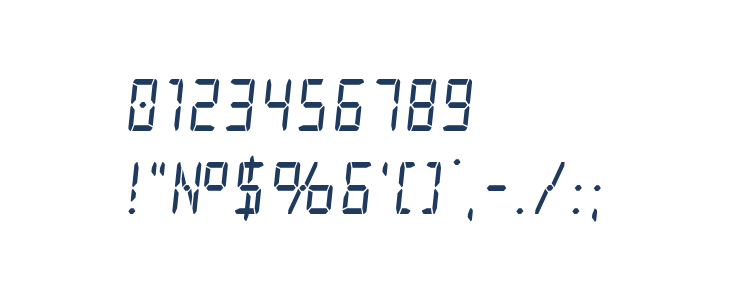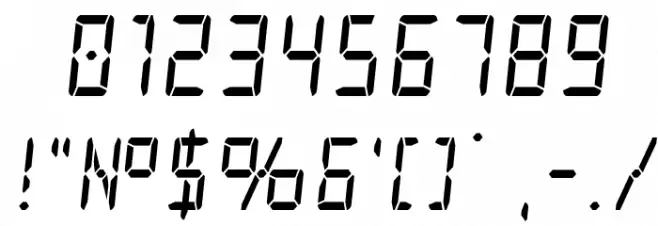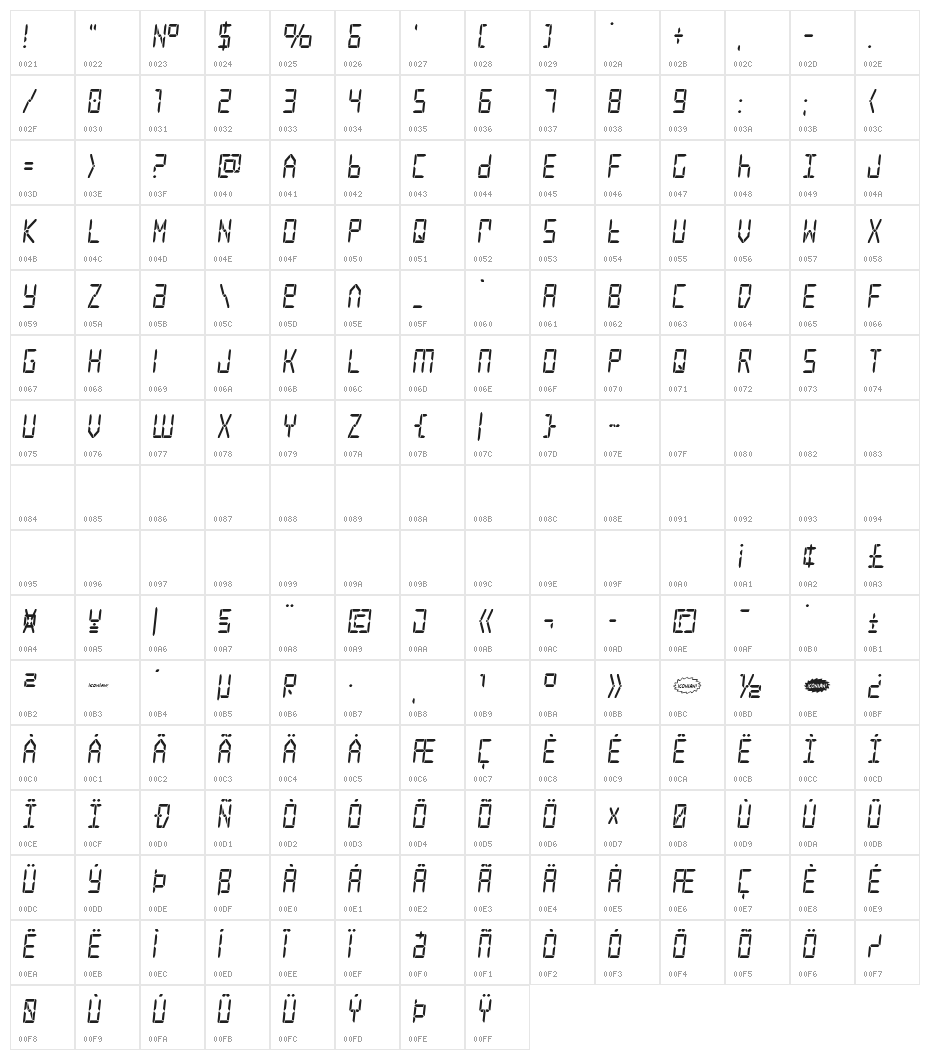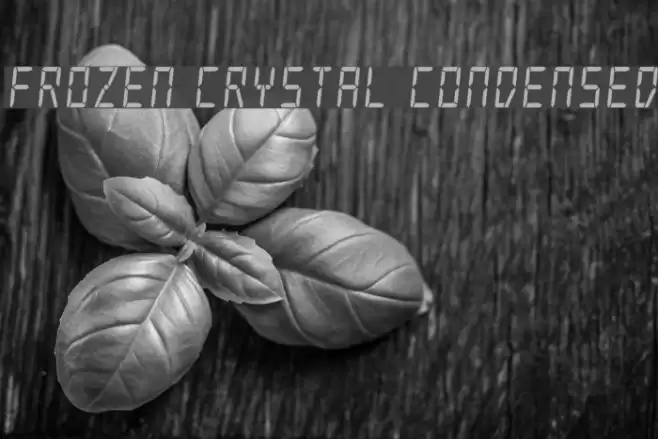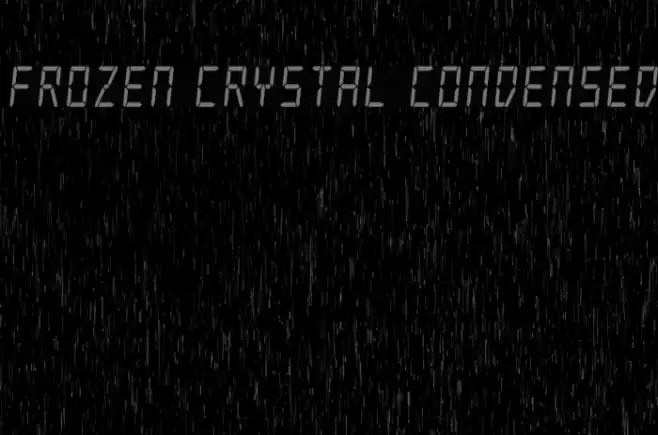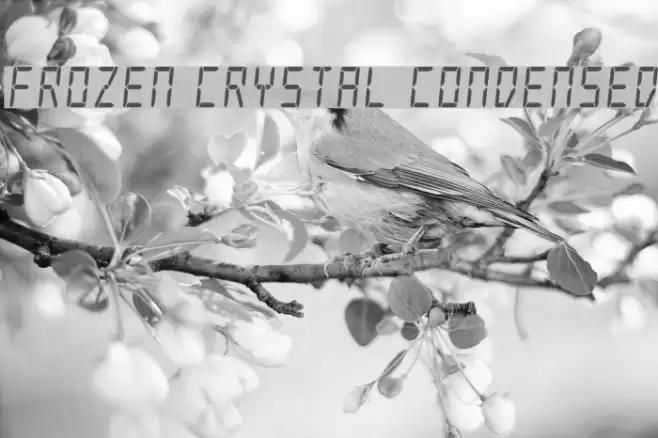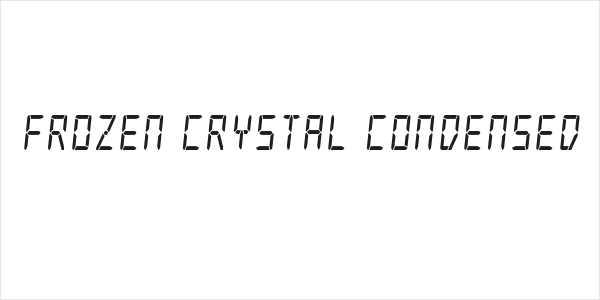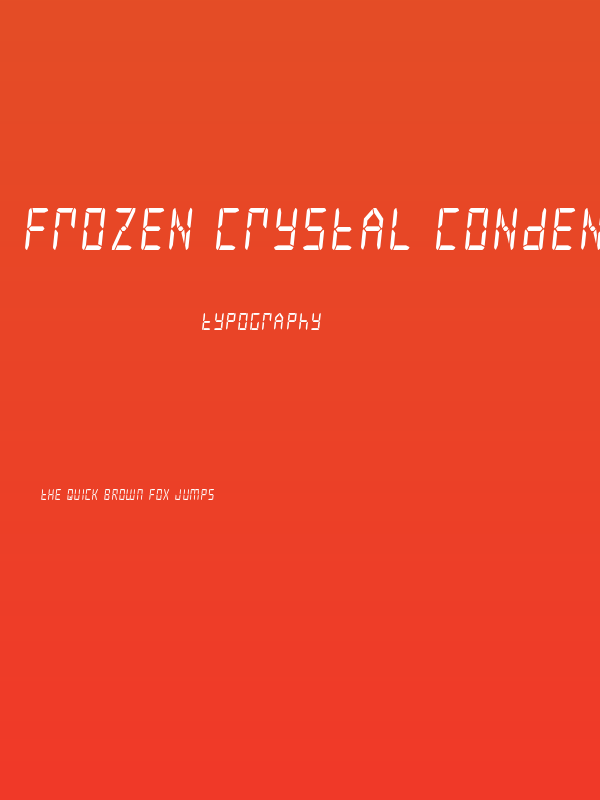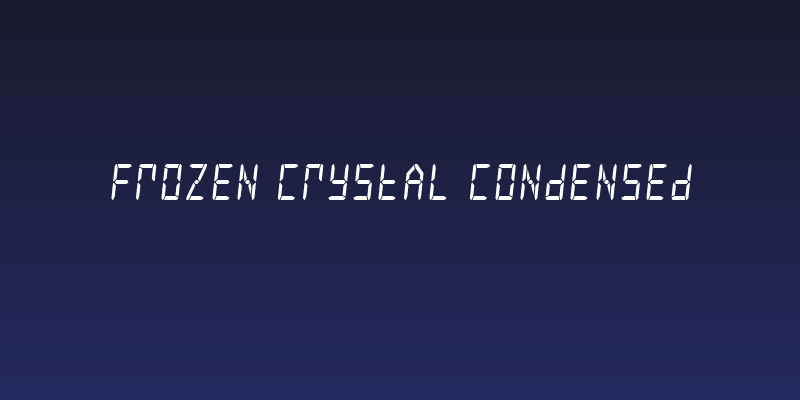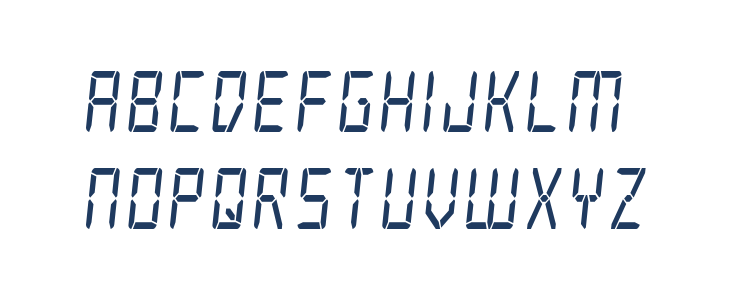
Frozen Crystal Condensed Font
Frozen Crystal Condensed Description
This font features a unique, digital-inspired design reminiscent of LED or LCD displays. Each character is constructed with angular, geometric shapes that create a futuristic and technological feel. The uppercase and lowercase letters maintain a consistent style, with sharp edges and a condensed form that maximizes space efficiency. Numbers and special characters follow the same design principles, ensuring a cohesive look across all text elements. The font's distinct appearance makes it ideal for projects that require a modern, tech-savvy aesthetic.
| Use Case | Headlines, Logos, Digital displays |
| Proposed Projects | Ideal for digital displays, tech branding, futuristic posters, and sci-fi themed designs. |